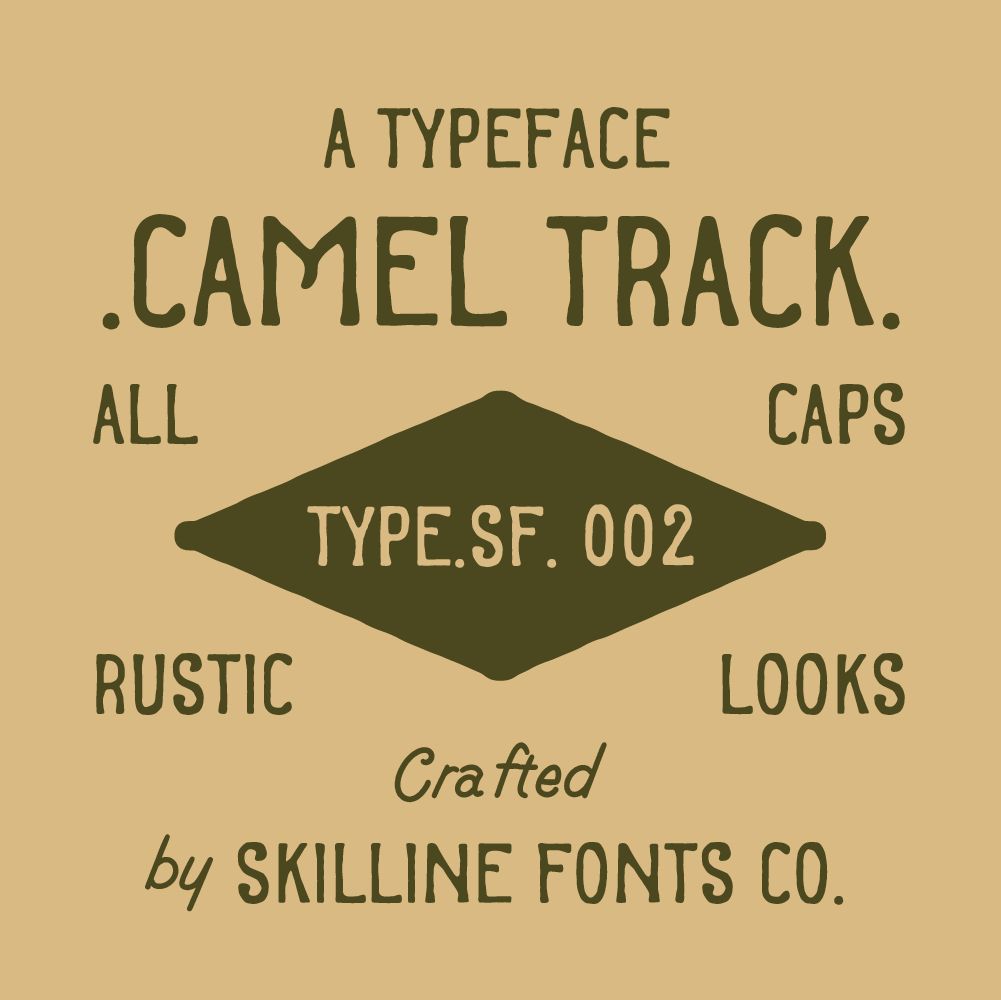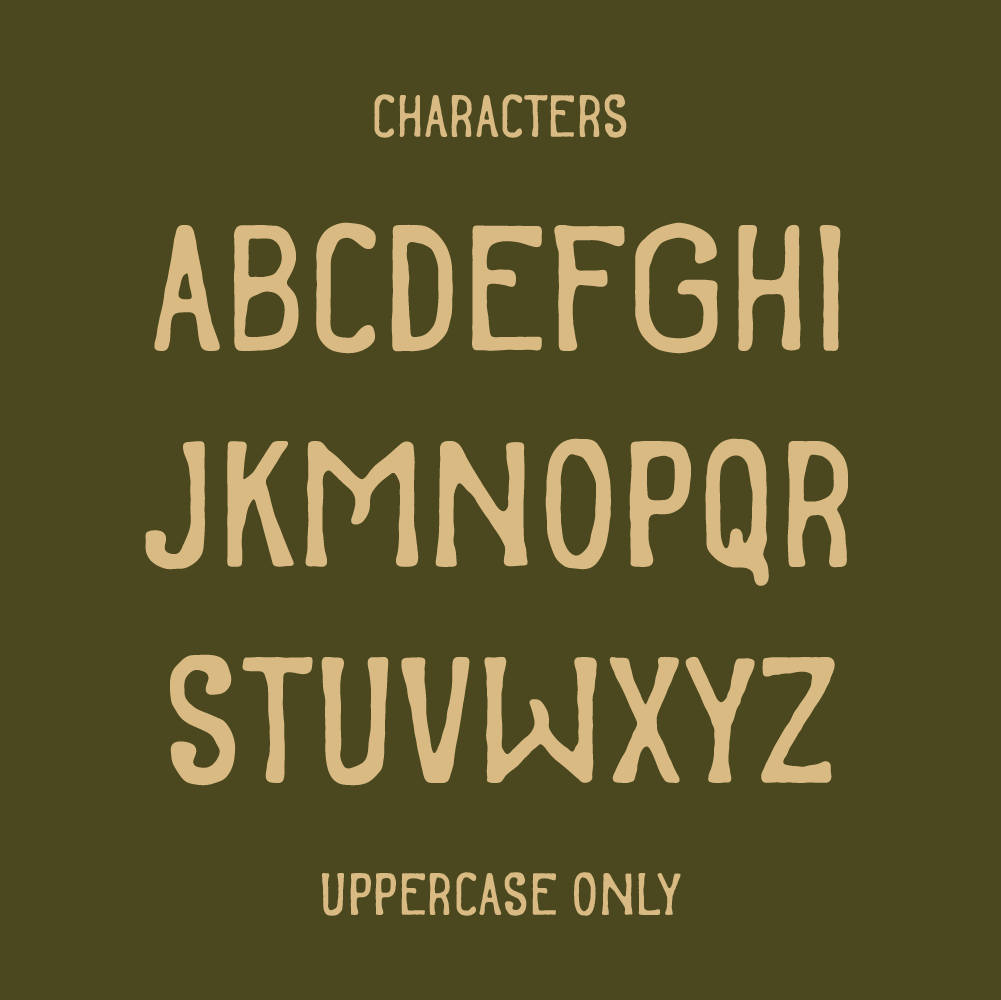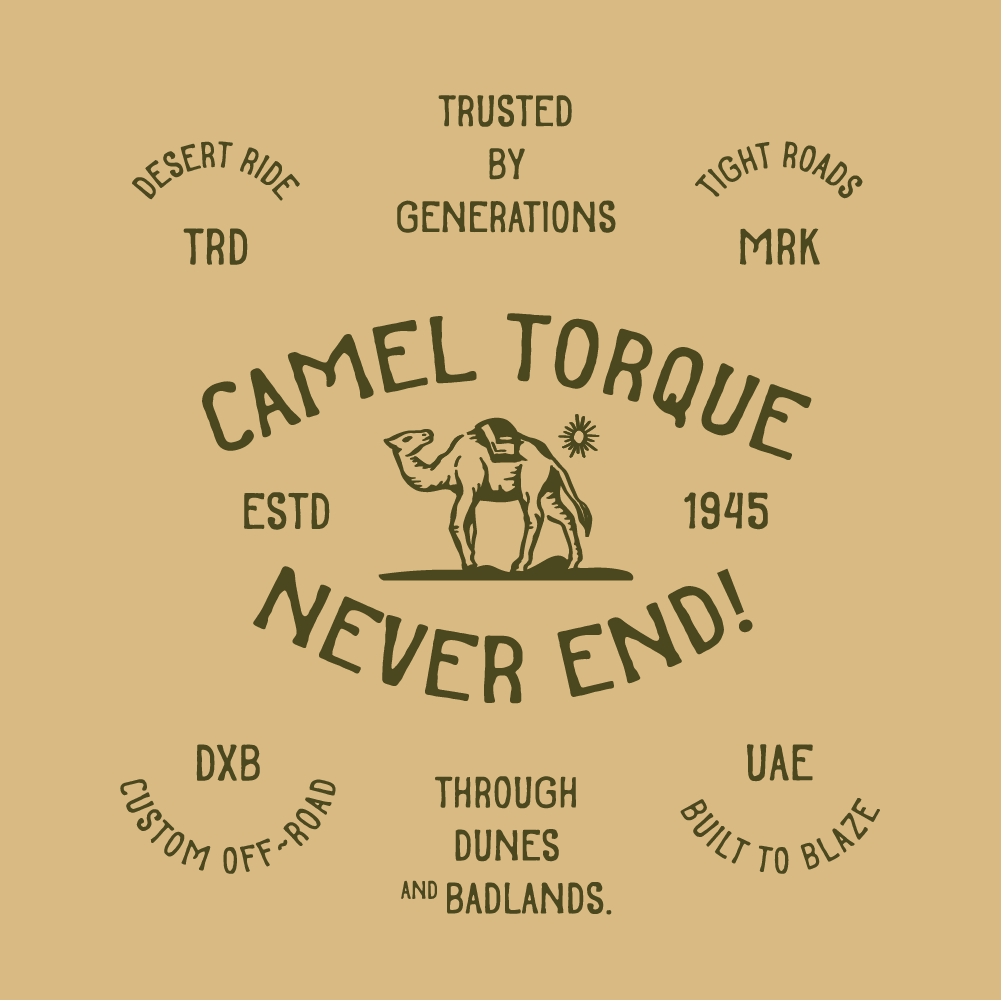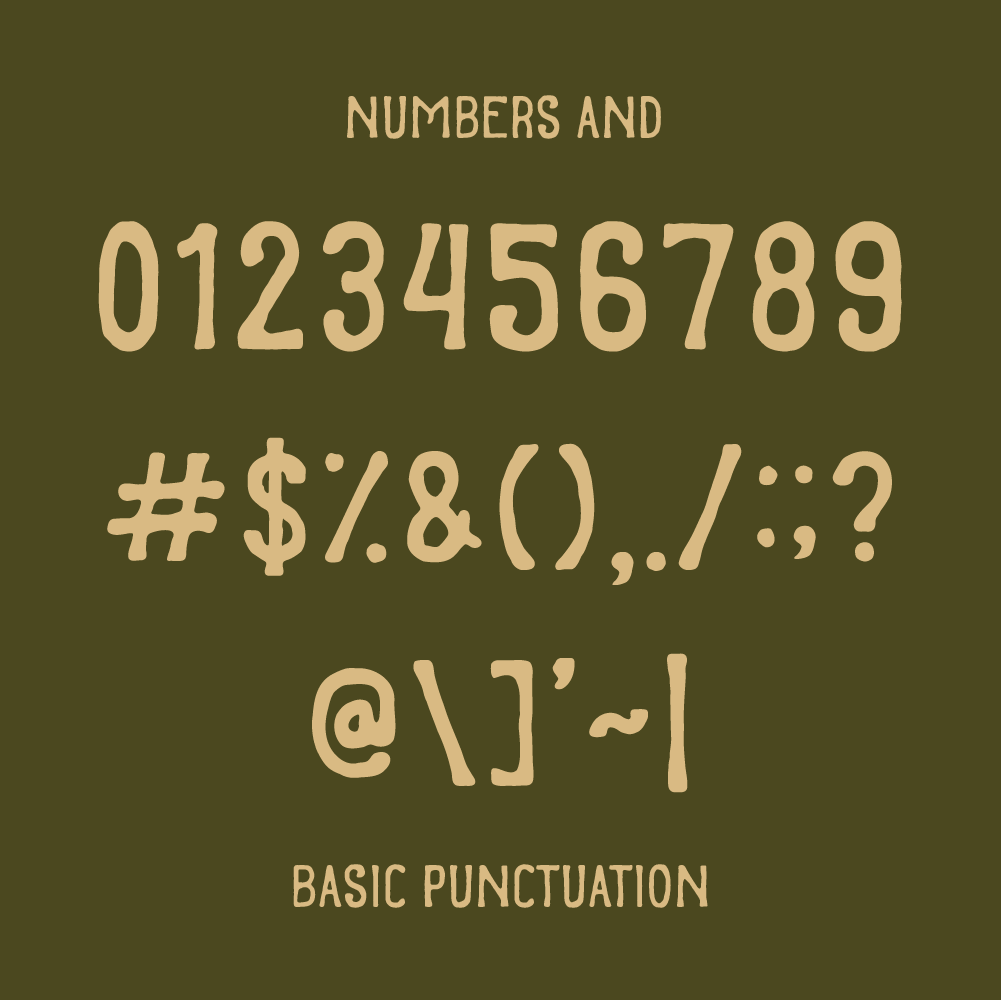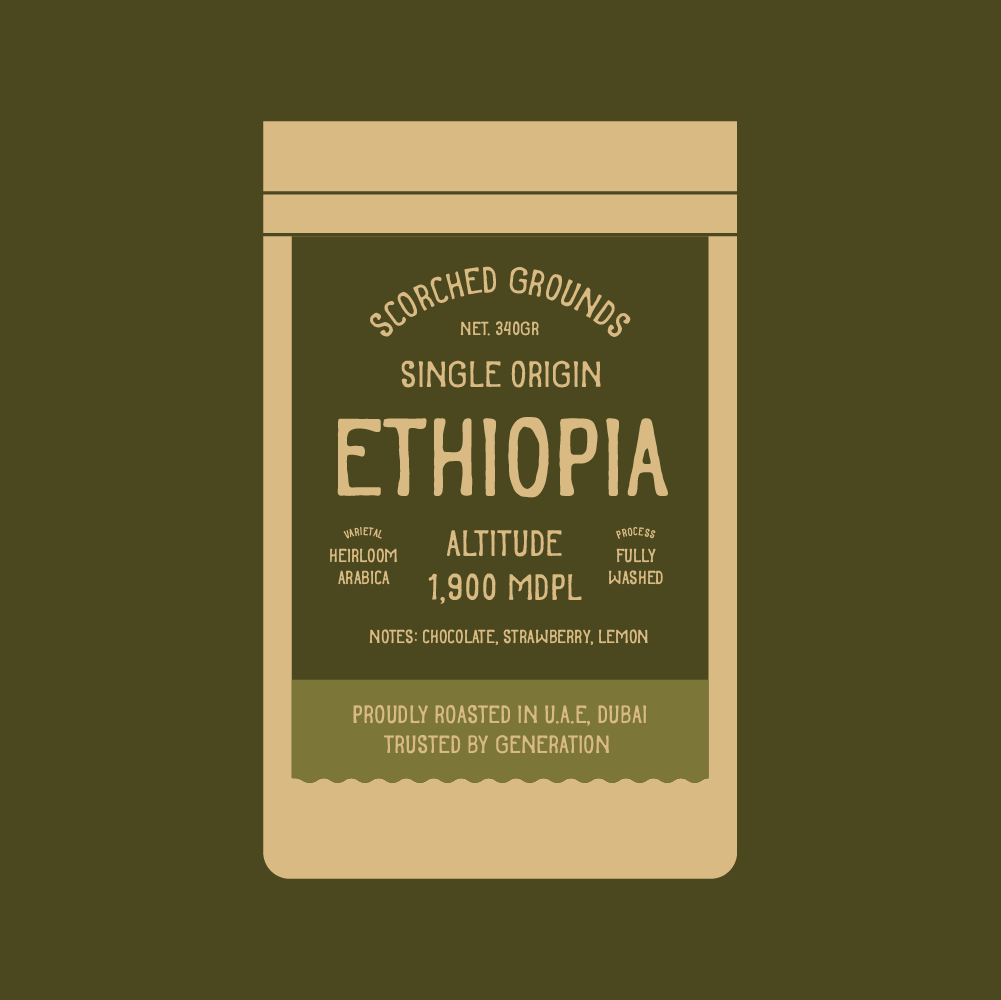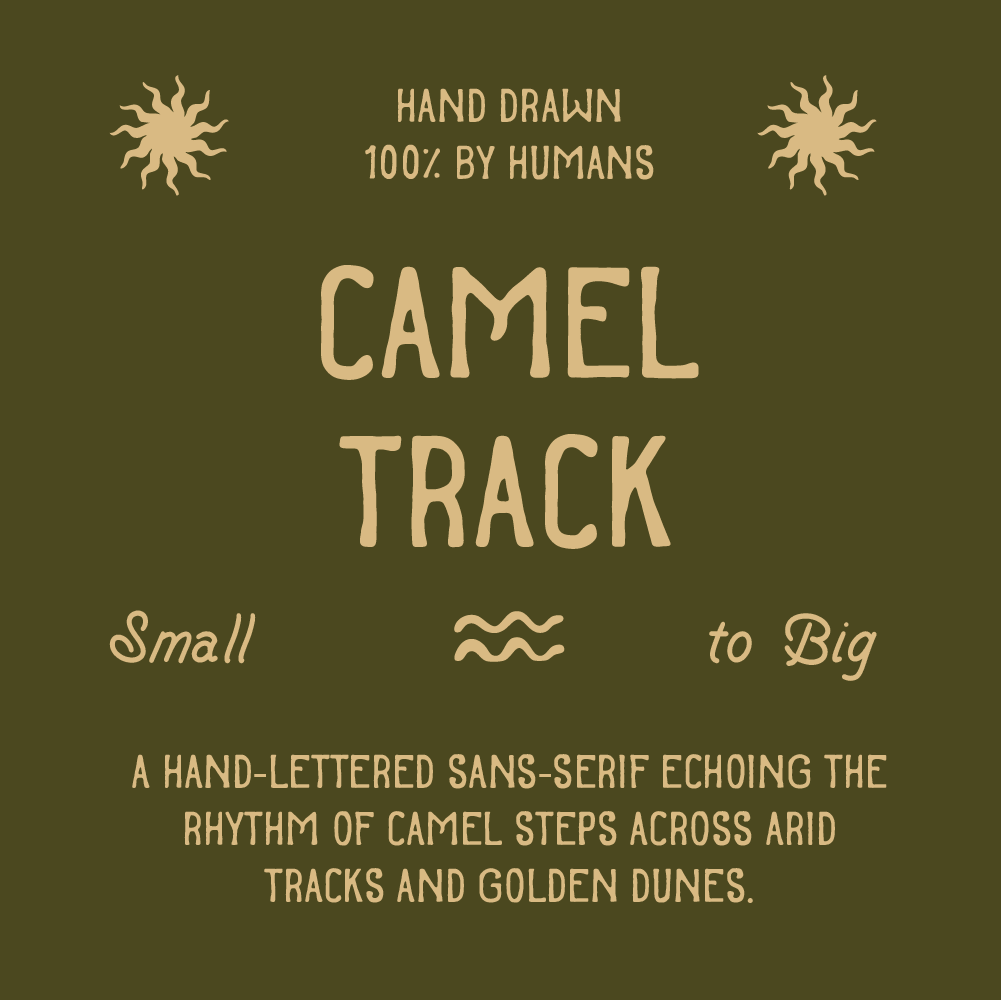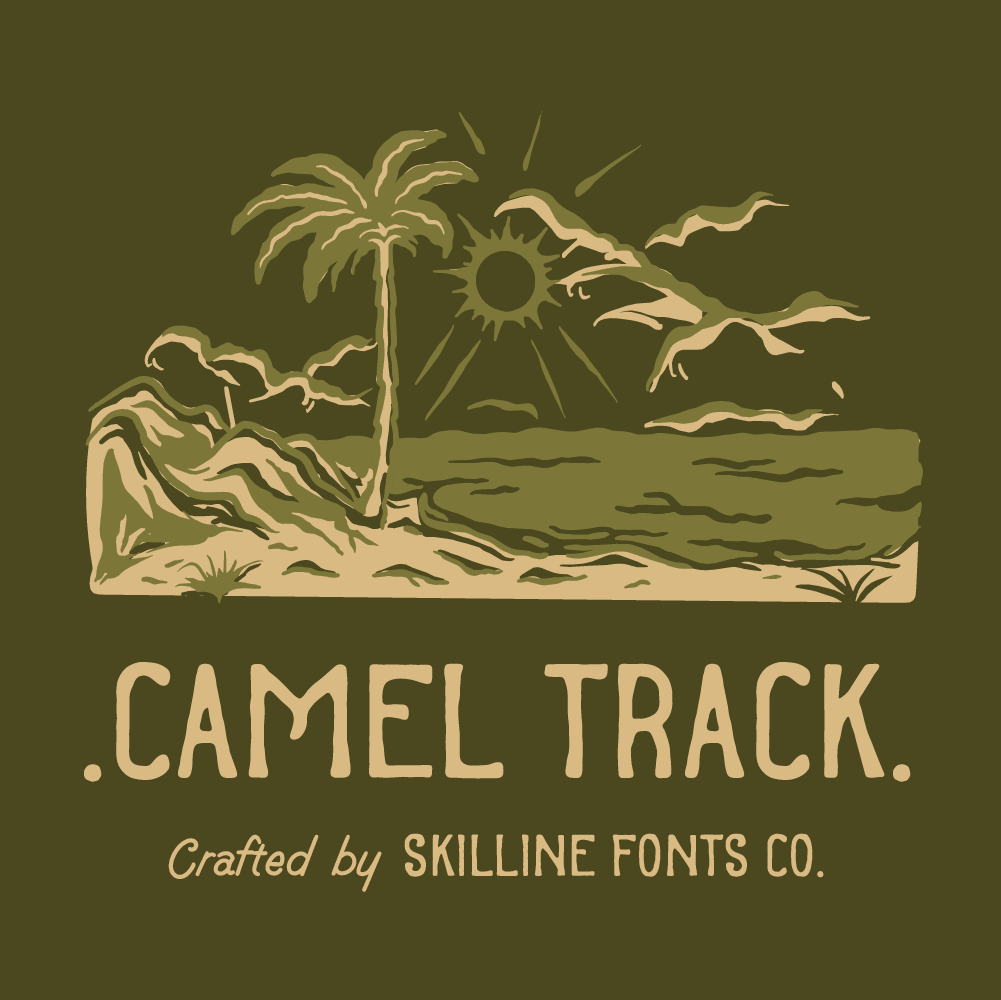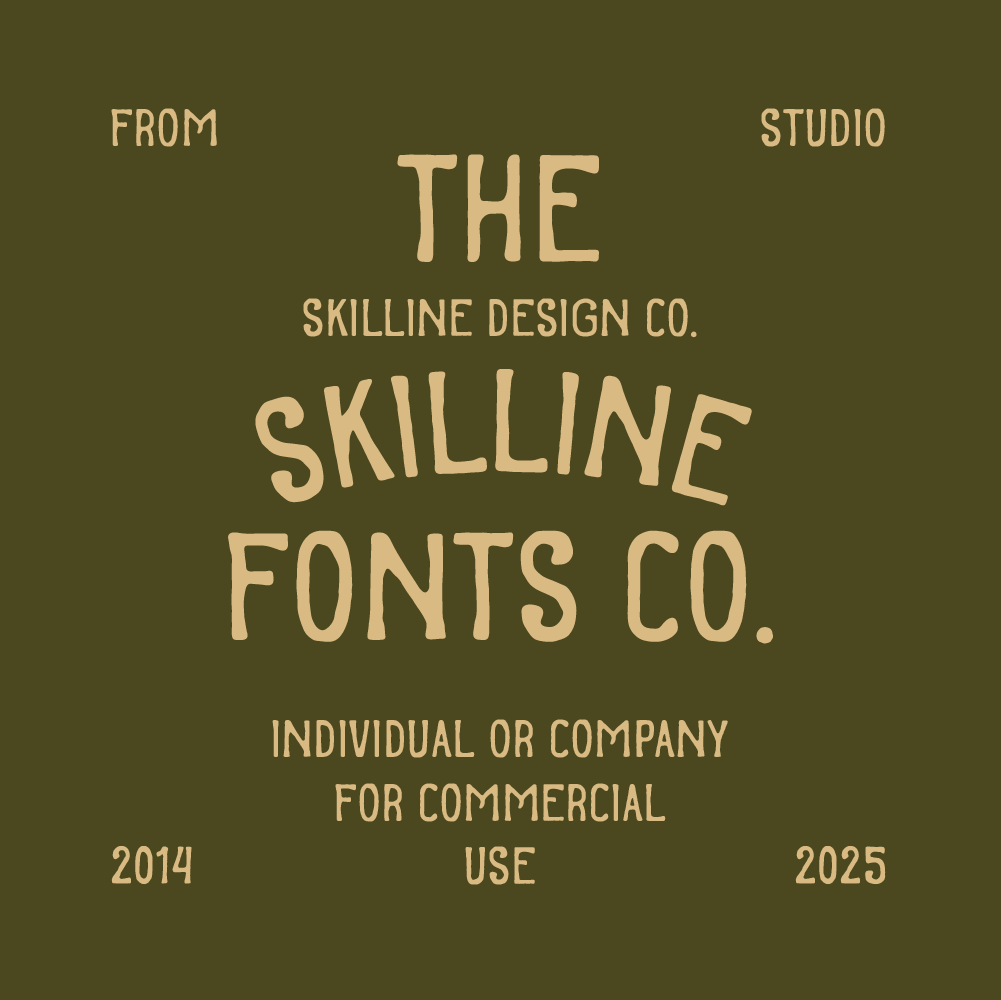
Camel Track is a rustic vintage font with a handlettered sans serif style, crafted with bold strokes, subtle imperfections, and timeless character. Designed for modern creatives who want a touch of nostalgia, it strikes the perfect balance between rugged authenticity and versatile usability. Whether you’re building a retro brand, designing editorial layouts, or crafting artisanal packaging, Camel Track brings raw personality and lasting charm to your projects. Its handcrafted sans serif structure with organic lines gives it a warm, authentic qualit, perfect for badges, logos, posters, labels, and merchandise.
Ideal Applications for SFC Camel Track Typeface
- Badges, logos, and brand marks with a rustic or vintage character
- Posters and editorial layouts that require a bold, handlettered feel
- Product labels and packaging, especially for coffee, craft, and handmade goods
- Apparel and merchandise such as t-shirts, hats, etc
- Digital and print designs that aim for a warm, authentic, and organic look
- All Caps Typeface
- Handcrafted Letterforms
- Basic Numerals & PunctuationÂ
- Multilingual Support